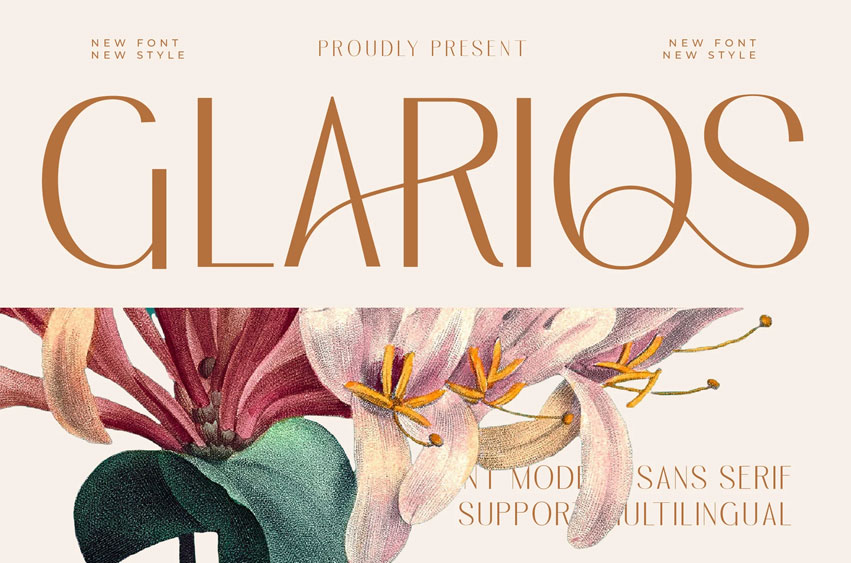
Glarious Font
Glarious Font sans serif font is a unique, modern, geometric font with a unique, elegant, luxurious, and geometric style.
It is a sans-serif font perfect for branding projects, logos, social media posts, product packaging, labels, etc.